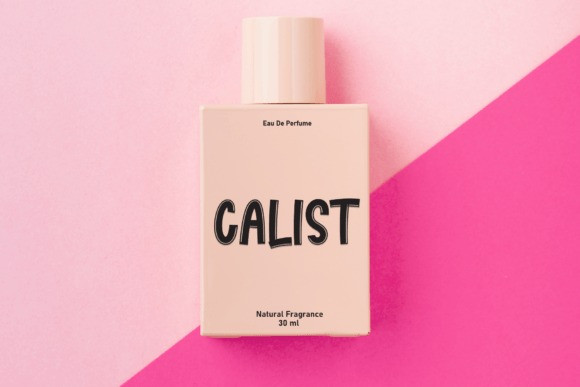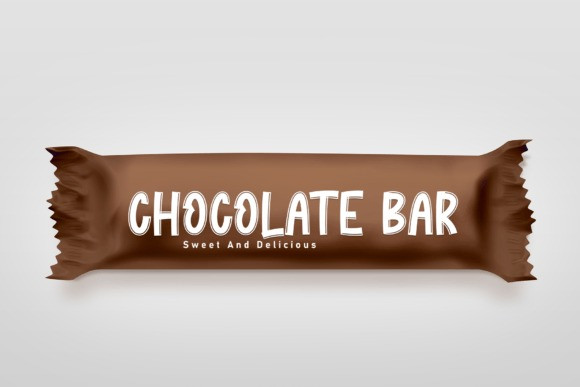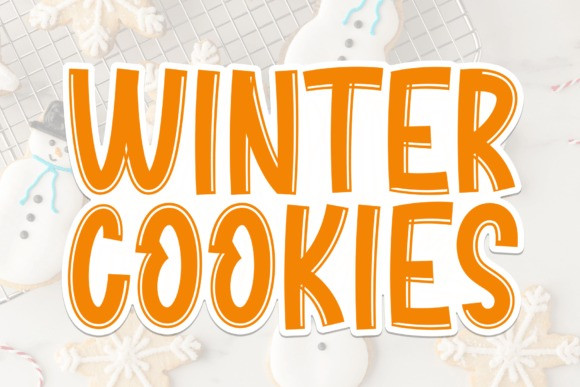
Winter Cookies Font
Winter Cookies Font is a whimsical display font that captures the festive spirit of the holiday season. With playful curves and charming details, each letter feels like a delightful cookie cutout. Perfect for adding a sprinkle of joy to your winter-themed projects, this font brings a sweet and festive touch to any design.